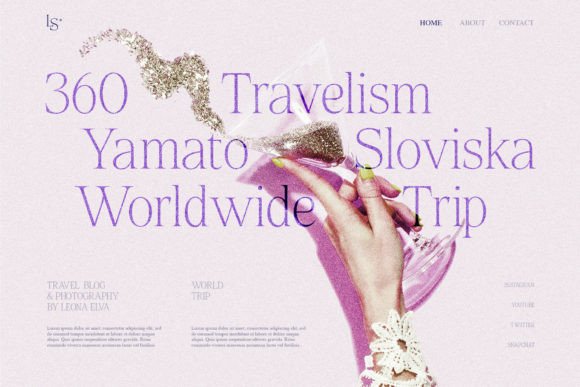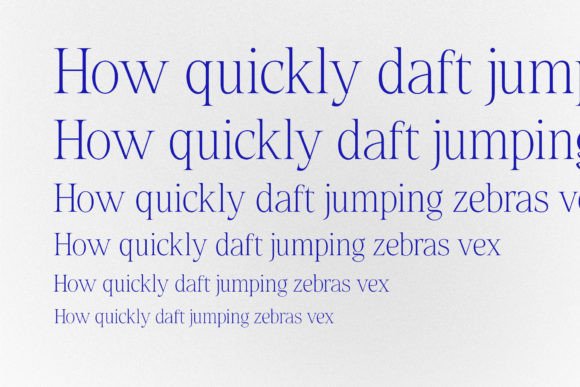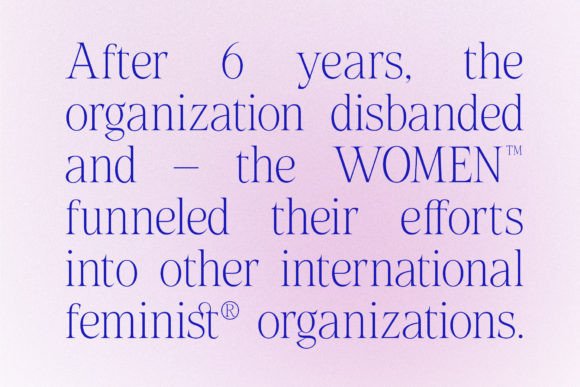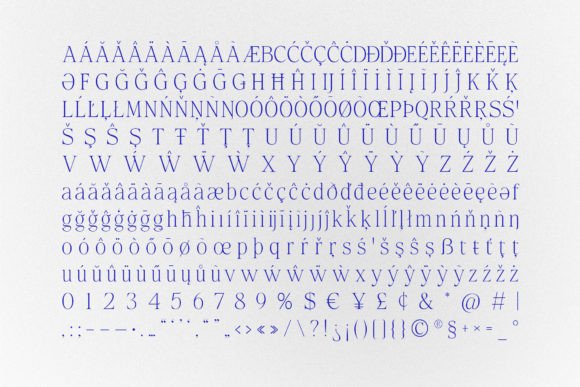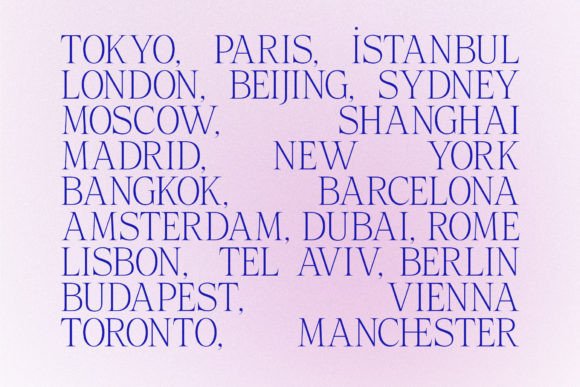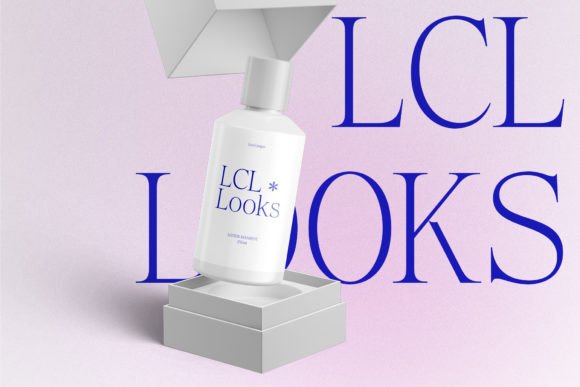
Introducing CAS Magakoro: Elevate Your Designs with Elegance and Sharpness
As a designer, you’re constantly on the lookout for the perfect typeface to elevate your designs and make them stand out from the crowd. Look no further than CAS Magakoro, the ultimate font for designers seeking to add a touch of elegance and sharpness to their work. With its dynamic and snappy letters, this font is perfect for headlines, display text, and branding, allowing you to create visually stunning designs that leave a lasting impression.
The Benefits of CAS Magakoro
CAS Magakoro is more than just a font – it’s a design solution that offers a range of benefits to help you take your designs to the next level. Here are just a few reasons why CAS Magakoro should be your go-to typeface:
- Versatility: CAS Magakoro is a versatile and flexible typeface that can be used in a variety of design contexts, from headlines and display text to branding and packaging.
- Elegance: With its sleek and sophisticated design, CAS Magakoro adds a touch of elegance to any design, making it perfect for luxury brands, high-end products, and creative agencies.
- Sharpness: The font’s dynamic and snappy letters provide a level of sharpness and precision that’s hard to find in other typefaces, making it ideal for designs that require attention-grabbing headlines and display text.
- Professionalism: CAS Magakoro’s polished and professional look makes it perfect for designers who want to impress their clients and create a lasting impression.
Why Choose CAS Magakoro?
With so many typefaces available, why should you choose CAS Magakoro? Here are a few reasons why CAS Magakoro stands out from the crowd:
- Unique Design: CAS Magakoro’s unique design sets it apart from other typefaces, providing a fresh and distinctive look that’s sure to grab attention.
- High-Quality: CAS Magakoro is a high-quality typeface that’s been carefully crafted to provide a smooth and consistent design experience.
- Easy to Use: CAS Magakoro is easy to use and integrate into your designs, making it perfect for designers of all skill levels.
- Constantly Updated: The CAS Magakoro font is constantly updated with new features and improvements, ensuring that you always have access to the latest and greatest design tools.
How to Use CAS Magakoro
Using CAS Magakoro is easy! Here are a few tips to get you started:
- Headlines: Use CAS Magakoro for headlines and display text to add a touch of elegance and sharpness to your designs.
- Branding: Use CAS Magakoro for branding and packaging to create a polished and professional look.
- Creative Projects: Use CAS Magakoro for creative projects, such as posters, flyers, and brochures, to add a touch of sophistication and style.